Nuform
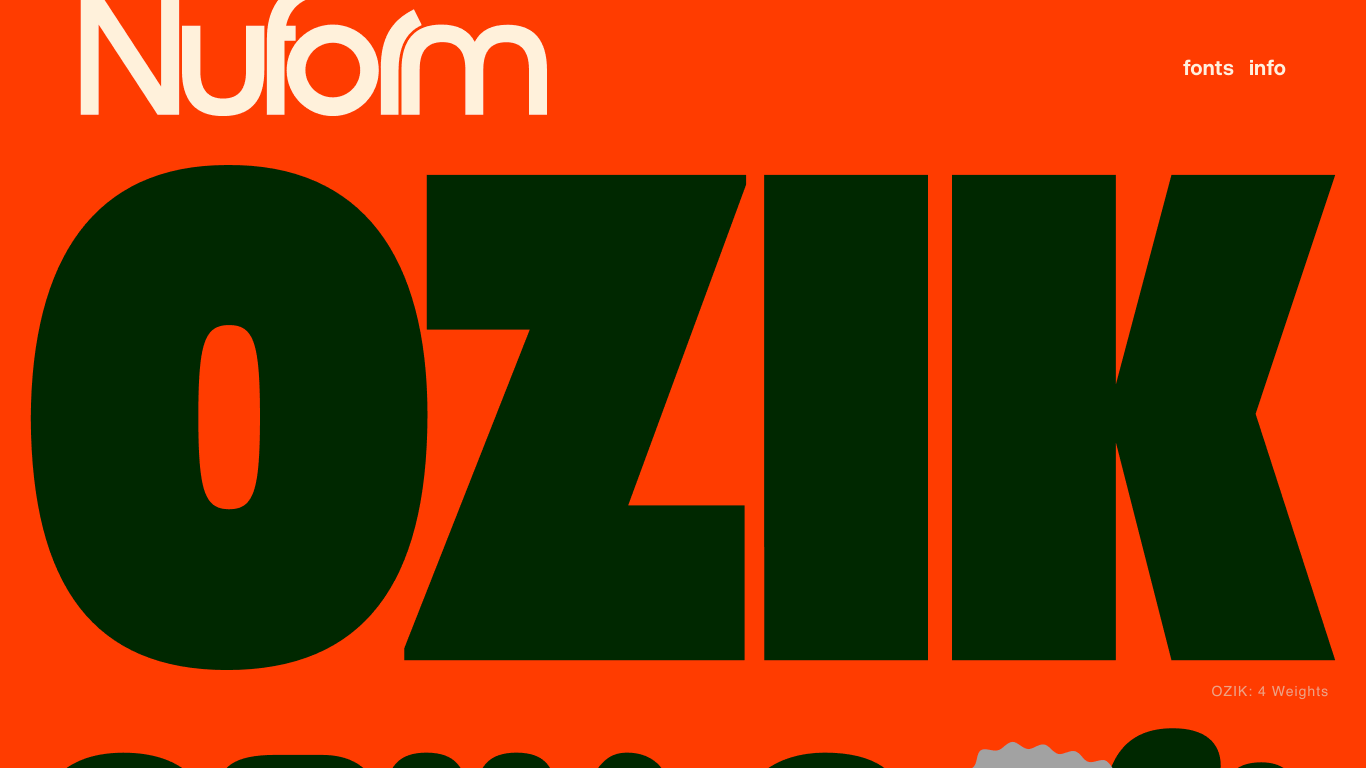
Nuform Type, founded by lettering artist Erik Marinovich in January 2022, is a type design studio based in the United States. The studio draws inspiration from culturally offbeat and eccentric influences to create expressive letterforms. Notable works include OZIK, a 4-weight display typeface inspired by Black Sabbath's "Vol. 4" album, OZIK Soft, a rounder and friendlier version of OZIK, Nuform Sans, a 5-weight family designed to complement OZIK, and Roko, a modern take on the geo-sans style. Other typefaces include BRZO, Hermanos, and Jaws, each offering unique, contemporary designs. Nuform Type's fonts have been used in various projects, including the OZIK typeface featured in the album art for the "We Stand with Ukraine" benefit concert in 2022 by Barracuda Music.